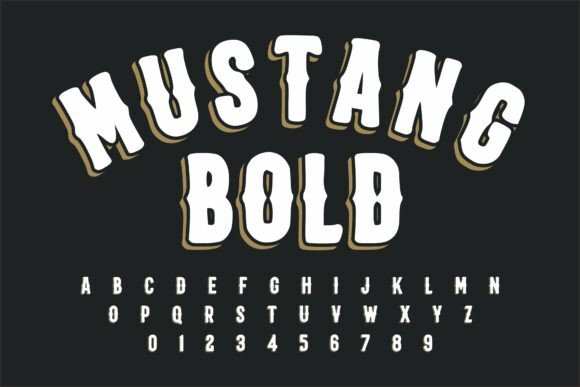
Bring Your Brand to Life with Mustang Bold
Sitting at my desk, I had just finished sketching out a new line of hand-poured soy candles. The labels needed something that would stand out on the shelves of local boutiques and online shops alike. That’s when I first saw Mustang Bold. Its chunky slab serif shapes and retro shadow effect felt like a perfect match for the rustic charm I was aiming for.
Mustang Bold is a strong and stylish vintage display font that brings a sense of old-timey flair to any project. With its bold curves and clean lines, it feels both powerful and approachable. It's not just a font—it's a mood. Think classic western typography with a modern twist, making it ideal for anything from handmade labels to digital printables.
A Font That Speaks Volumes
When I first applied Mustang Bold to my candle label mockup, I was surprised by how much personality it added. The retro shadow effect gave the text depth, while the slab serifs made it feel sturdy and trustworthy. It wasn’t just about looking good—it was about feeling right. This font has a certain weight to it, which makes it great for short phrases or names, but still works well when used sparingly in longer texts.
I tested it on different materials—sticker sheets, printed cards, and even fabric transfers—and each time, Mustang Bold held up beautifully. Whether it was on a small tag or a large sign, the font maintained its character without becoming overwhelming. It’s this balance of strength and style that makes it so versatile for creative projects.
From Labels to Wall Art: Real Uses for Mustang Bold
Since discovering Mustang Bold, I’ve started using it across a variety of handmade products. On my greeting cards, it adds a touch of nostalgia that really resonates with customers who love vintage-inspired designs. For wedding invitations, I paired it with a clean sans serif font to create a contrast that felt both elegant and playful.
It’s also been a favorite for boutique packaging. I used it on custom tags for my handmade soap collection, and the response was overwhelmingly positive. Customers mentioned how the font made the product feel more premium and intentional. That’s the power of typography—it can elevate the entire look and feel of your brand.
For digital printables, Mustang Bold works wonders on planner pages and printable wall art. I created a set of seasonal greeting cards using this font, and they instantly became bestsellers. The retro vibe of Mustang Bold fits perfectly with holiday themes, farmhouse decor, and even modern minimalist aesthetics when paired correctly.
Design Tips for Using Mustang Bold
If you're planning to use Mustang Bold on small stickers or product labels, be mindful of spacing and legibility. Because of its bold curves and thick strokes, it might not be the best choice for very tiny text. But when given enough room, it shines.
Font pairing is another important consideration. Mustang Bold pairs well with a clean sans serif font for a balanced look, or a simple script font for a more decorative feel. Don’t be afraid to experiment, but keep the overall design cohesive.
More Than Just a Typeface
Using Mustang Bold has changed the way I think about typography. It’s not just about choosing a font—it’s about choosing the right voice for your brand. Whether I’m designing a tote bag, a mug, or a seasonal gift tag, Mustang Bold helps me communicate the right message in a way that feels authentic and appealing.
With Mustang Bold, I’ve found a typeface that feels like a trusted companion in my creative process. It brings energy, character, and a touch of vintage charm to every project it touches. If you’re looking for a display font that can do it all—from labels to wall art—give Mustang Bold a try. You might just find your new favorite tool for bringing your brand to life.